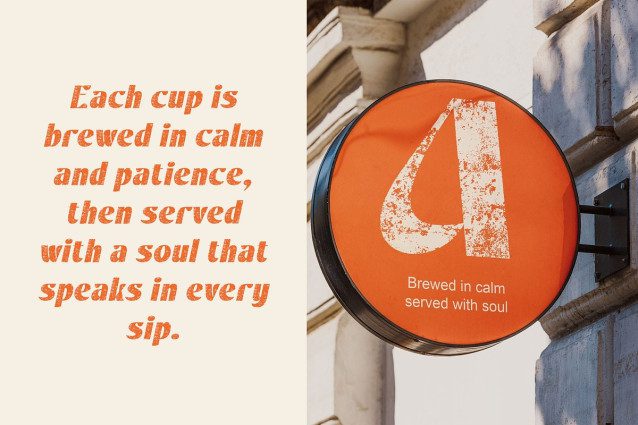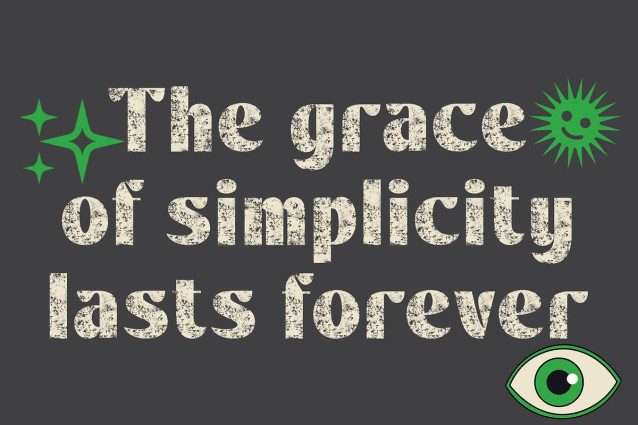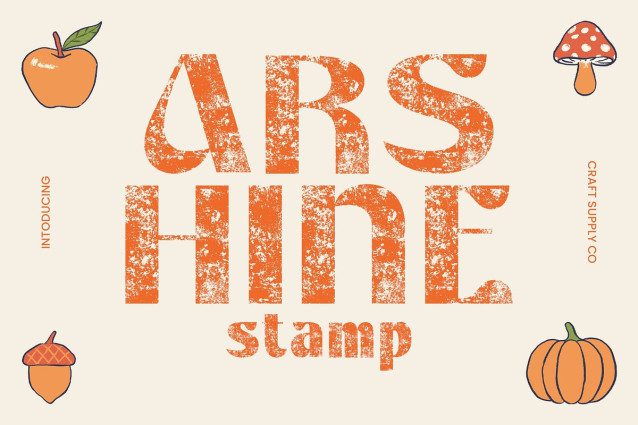
Arshine Stamp Font – Funky Retro Font with Vintage CharmFunky Display Font with Decorative Curves This is a funky display font that bursts with retro personality and artistic flair. Its decorative curves and bold, expressive shapes capture the vibrant spirit of vintage design while maintaining a fresh and stylish edge. Each letterform carries a rhythmic flow, making it an eye-catching choice for projects that aim to be bold and full of life.
Stamp Effect for Authentic Texture What makes Arshine truly unique is its stamp texture, which adds depth, imperfection, and a handcrafted touch. The slightly worn surface creates a sense of authenticity, giving your typography a tactile, nostalgic feel reminiscent of old print posters or handmade signage. This fusion of vintage imperfection and modern confidence makes the font stand out effortlessly.
Retro Energy Meets Modern Expression This font brings retro aesthetics into a contemporary context, making it ideal for projects that need both nostalgia and style. Its funky, curved shapes lend themselves beautifully to music visuals, lifestyle branding, or retro-inspired campaigns, where personality and rhythm take center stage.
Perfect for Expressive, Character-Driven Design Whether you’re designing retro posters, creative branding, album covers, or packaging, delivers a strong visual impact. It combines funky artistry with vintage authenticity, resulting in a font that feels both timeless and expressive. This font is not just a font it’s a statement of creativity.